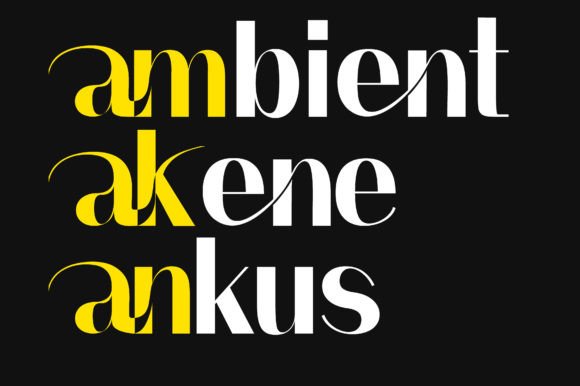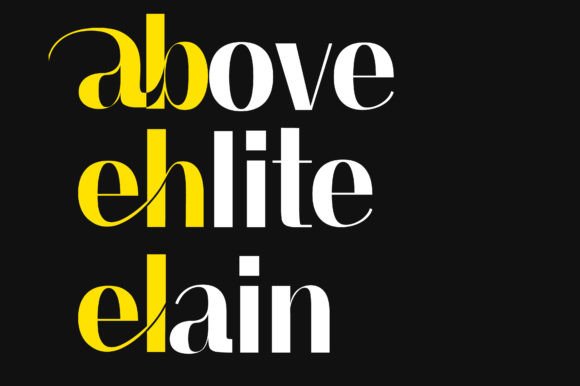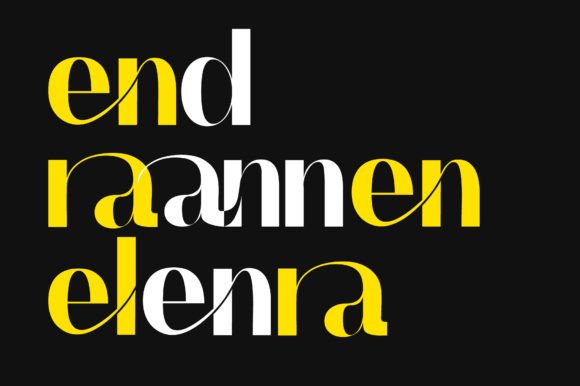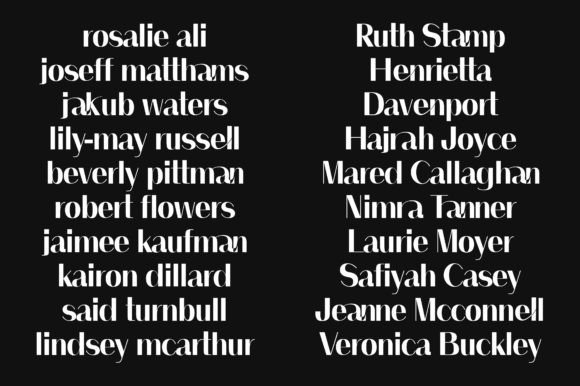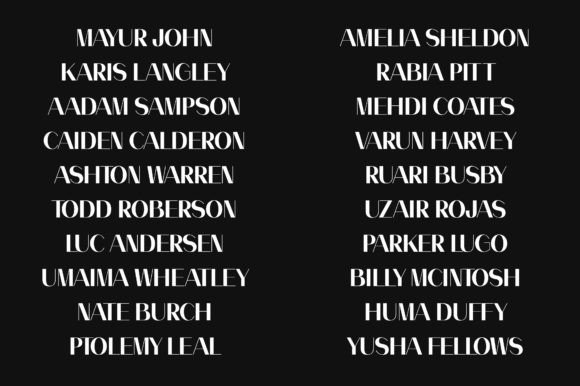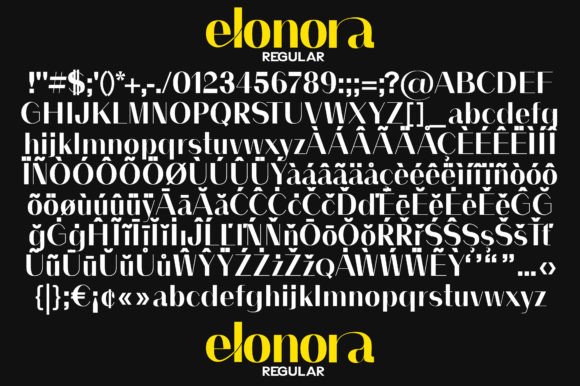
Discover the Elegance of Elonora Font: A Delicate Sans-Serif Typeface
Are you a designer or crafter looking for a font that exudes elegance, luxury, and femininity? Look no further than Elonora Font, a delicate sans-serif typeface that is sure to elevate your creative projects. With its simple yet perfectly curved construction, Elonora is the perfect choice for those seeking a sophisticated and refined aesthetic.
The Characteristics of Elonora Font
Elonora Font is a sans-serif typeface that boasts a delicate and feminine appearance. Its simple design makes it an excellent choice for a wide range of applications, from luxury branding to wedding invitations. The font’s curved construction adds a touch of elegance, making it perfect for designers who want to create a sense of sophistication and refinement.
Why Choose Elonora Font?
So, why should you choose Elonora Font for your next project? Here are just a few reasons:
- Elegance: Elonora Font is the epitome of elegance. Its delicate design and curved construction make it perfect for creating luxurious and sophisticated designs.
- Femininity: If you’re looking for a font that exudes femininity, Elonora is an excellent choice. Its soft and curved lines make it perfect for designs that require a touch of elegance and refinement.
- Versatility: Despite its delicate appearance, Elonora Font is surprisingly versatile. It can be used for a wide range of applications, from branding and advertising to packaging and web design.
Using Elonora Font in Your Designs
So, how can you use Elonora Font in your designs? Here are a few ideas to get you started:
- Luxury Branding: Elonora Font is perfect for luxury brands that want to create a sophisticated and refined aesthetic. Use it for logos, packaging, and advertising materials to create a sense of elegance and luxury.
- Wedding Invitations: If you’re a designer who specializes in wedding invitations, Elonora Font is an excellent choice. Its delicate design and curved construction make it perfect for creating beautiful and elegant invitations.
- Web Design: Elonora Font can also be used in web design to create a sophisticated and refined online presence. Use it for headings, titles, and other design elements to add a touch of elegance to your website.
Tips for Working with Elonora Font
Here are a few tips for working with Elonora Font:
- Use it sparingly: While Elonora Font is elegant and refined, it can be overwhelming if used excessively. Use it sparingly to create a sense of sophistication and elegance.
- Pair it with other fonts: Elonora Font can be paired with other fonts to create a unique and interesting design. Try pairing it with a bold sans-serif font for a striking contrast.
- Experiment with different sizes: Elonora Font can be used in a variety of sizes, from large headings to small body text. Experiment with different sizes to find the perfect fit for your design.
In conclusion, Elonora Font is a delicate, feminine, and elegant sans-serif typeface that is perfect for designers and crafters who want to create sophisticated and refined designs. With its simple yet curved construction, Elonora is an excellent choice for a wide range of applications, from luxury branding to wedding invitations. Whether you’re a seasoned designer or just starting out, Elonora Font is definitely worth checking out.
Get Creative with Elonora Font